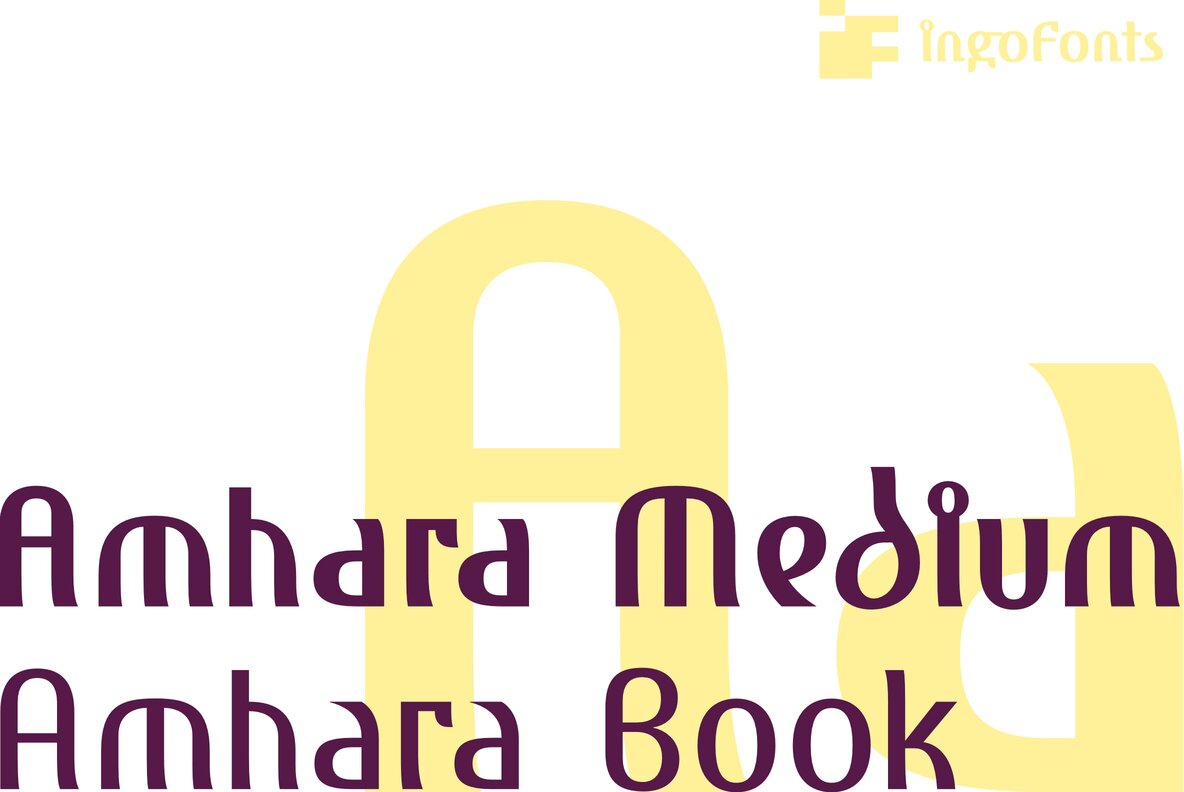
Amhara
An experiment: a “latin” alphabet modelled on the ethiopian Ge'ez script
Cush, Punt, Saba, Aksum, Abyssinia, Ethiopia — the name of this country in Eastern Africa has seen many changes throughout thousands of years of history. Few nations have a similar long history and cultural tradition. Independent as far back as can be remembered, it was one of the “great” kingdoms for a long time. It is also considered the oldest Christian country.
The Amharic language of Ethiopia and its accompanying script “Ge’ez” developed from Semitic origins in Arabia. Due to a more than 1600 year Christian tradition and the close relationship to the Hellenistic Mediterranean region during late antiquity, there are borrowings from Greek which can be recognized in the Amharic script. »Ge’ez« is the only script of Semitic origin which is written from left to right. Because Amharic is traditionally written with an expanded pen tip, it shows the typical ductus also characteristic of the uncial scripts of late antiquity and the early Middle Ages.
So for experts in script, AMHARA has a somewhat sacramental effect. And, although the individual forms look foreign, the overall picture is strangely familiar. AMHARA was created by transferring the typical Amharic forms to the west European alphabet. Nearly all of the formal characteristics of Ge’ez could be carried over into the lower case letters. In fact, the following characters have even been — of course with another meaning — completely adopted: B C H J M O T W Y Z d e g m n p t u y 2 4 8
Typical for the Ethiopian script are the specially emphasized expanded verticals resulting from the horizontal position of the pen. The form which appears most frequently and thus influences the overall picture the most is the open bow at the bottom. The symmetrical bowl at the transition of the expanded to the light and again expanded determines the appearance of the font considerably.
Also typical of Semitic scripts are the many forms of commas, serifs, rings and all kinds of additional “accessories.” With these so-called diacritic marks, the desired vowel sounds are added to the 28 basic consonant characters and consequently, 276 different syllable characters are attained. In this way there is a wealth of forms in the details which makes it possible to put together the components for European characters.
At the same time, some forms hardly ever appear in Ge’ez: the individual straight stroke (as in I) and the diagonal stroke from the top right to the bottom left (only appears in Z). All Amharic characters have at least a hint of a stroke from the top left and a small downstroke at the bottom towards the right. To a great extent the attempt was made to retain this direction of movement in AMHARA.
The lower case characters have a restless appearance (very intentional) and are not fluently legible. In this way the foreign and exotic impression of the African model is still present.
The upper case characters are a different story: In contrast to Roman capitals the Amharic characters almost completely do without acute triangular forms. For the usual square and slanted forms of our letters A E F K M N R V W X Y other solutions had to be found.
In Ge’ez there are quick jagged characters, but only the form Z is transferrable. So the capitals of AMHARA receive a very pleasant, round appearance. A text in upper case characters of this font makes a calm impression as the same few basic forms are continually found in the diverse characters. Seldom does a text in capitals have this gentle effect.
AMHARA includes a number of ligatures which dispose of many non-attractive letter combinations: ch ck fa ff fi fl ffl ffi ft gg gt ll st ta th ti tt tu tz.
Stylistic alternates are available for the letters f g h p t y z.